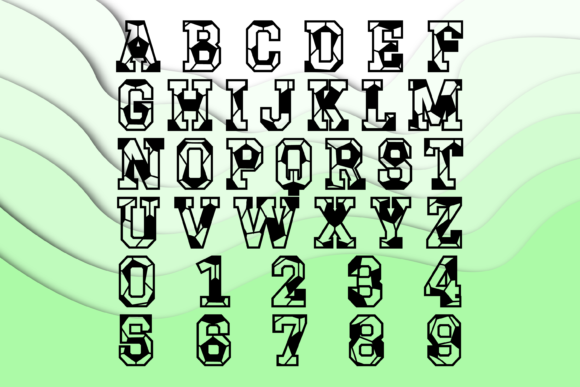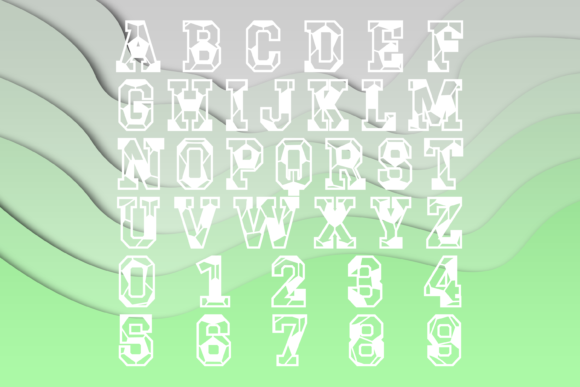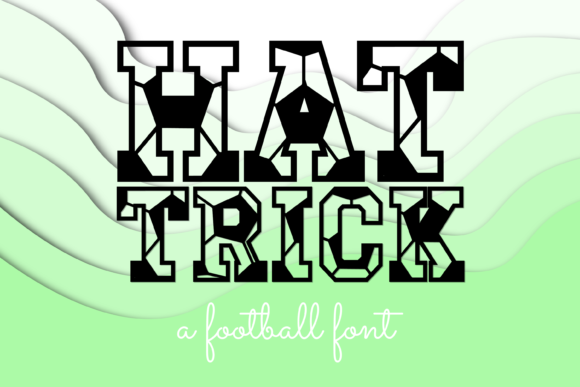
Discover the Magic of Hat Trick Font: Elevate Your Designs with a Lovely Touch
Hat Trick is an incredibly cool font. Whether you use it for custom designs, DIY crafts, or just any creation that requires a lovely touch, this font will be an amazing choice. In this article, we’ll dive into the world of Hat Trick Font, exploring its features, uses, and benefits for designers and crafters alike.
What is Hat Trick Font?
Hat Trick Font is a unique and stylish typeface that has gained popularity among designers and crafters. Its distinctive design makes it stand out from other fonts, adding a touch of personality to any project. Whether you’re working on a logo, invitation, or craft project, Hat Trick Font is sure to impress.
Features of Hat Trick Font
So, what makes Hat Trick Font so special? Here are some of its key features:
- Unique Design: Hat Trick Font boasts a one-of-a-kind design that’s both elegant and playful.
- Versatility: This font can be used for a wide range of projects, from custom designs to DIY crafts.
- Easy to Read: Despite its unique design, Hat Trick Font remains easy to read, making it perfect for body text and headings.
- Customizable: With Hat Trick Font, you can experiment with different sizes, colors, and styles to create a look that suits your project.
Uses of Hat Trick Font
Hat Trick Font is an incredibly versatile typeface that can be used in various projects, including:
- Custom Designs: Add a personal touch to your designs with Hat Trick Font, perfect for logos, branding, and advertising materials.
- DIY Crafts: Use Hat Trick Font to create beautiful and unique craft projects, such as handmade cards, invitations, and scrapbooking.
- Digital Art: Experiment with Hat Trick Font in your digital art projects, including illustrations, graphics, and mixed media.
- Paper Crafting: Add a touch of elegance to your paper crafting projects, such as card making, journaling, and origami.
Benefits of Using Hat Trick Font
So, why choose Hat Trick Font for your projects? Here are some benefits:
- Stand Out: With Hat Trick Font, you can create unique and eye-catching designs that set you apart from others.
- Time-Saving: Hat Trick Font saves you time and effort, as you can quickly create professional-looking designs without extensive design experience.
Tips and Tricks for Using Hat Trick Font
To get the most out of Hat Trick Font, here are some tips and tricks:
- Experiment with Sizes: Play with different font sizes to create visual interest and hierarchy in your designs.
- Combine with Other Fonts: Pair Hat Trick Font with other fonts to create a unique and harmonious design.
- Use in Combination with Images: Combine Hat Trick Font with images or graphics to add depth and context to your designs.
- Make it Your Own: Don’t be afraid to experiment and make Hat Trick Font your own by adding effects, colors, or textures.
In conclusion, Hat Trick Font is an incredibly cool font that’s perfect for designers and crafters looking to add a lovely touch to their projects. With its unique design, versatility, and ease of use, this font is sure to become a favorite in your design arsenal. So, go ahead and give Hat Trick Font a try – you won’t be disappointed!